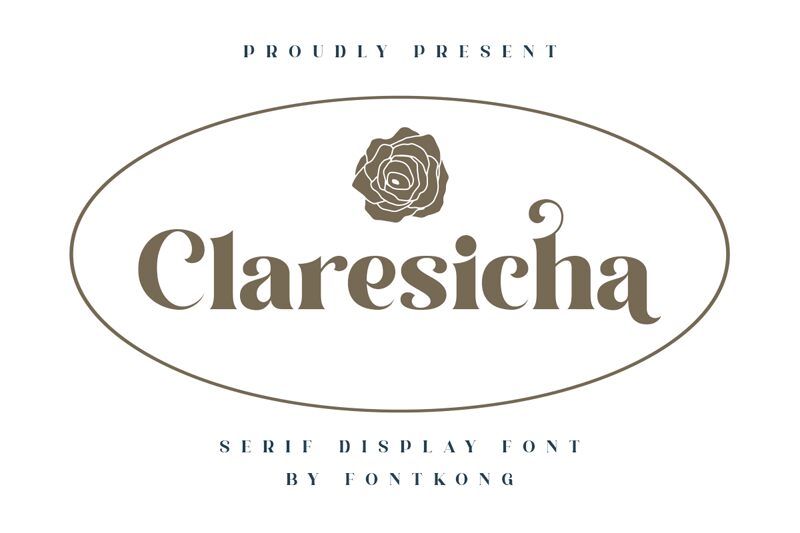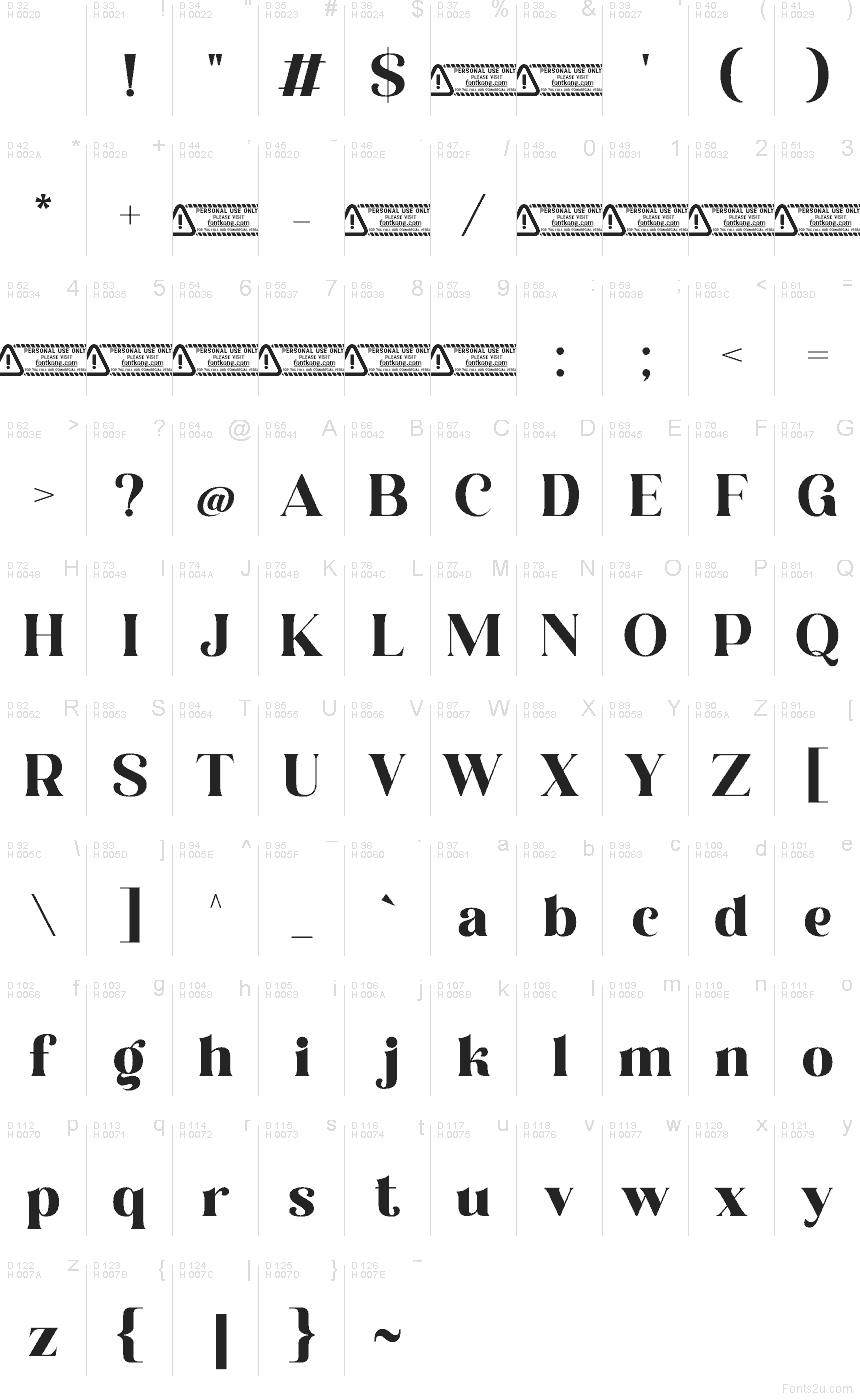
Claresicha by Kong Font is a free high-contrast serif with a polished, fashion-led mood. The letters pair sharp, sweeping silhouettes with soft curled details, so the font feels elegant first and slightly dramatic second.
It fits branding, boutique packaging, magazine covers, beauty editorials, and restaurant menus where you want a refined headline voice without going plain. As a free font, it also makes sense for title cards, logo sketches, and short social posts, since those wide curves and pinched joins give even a few words a distinctly styled presence.